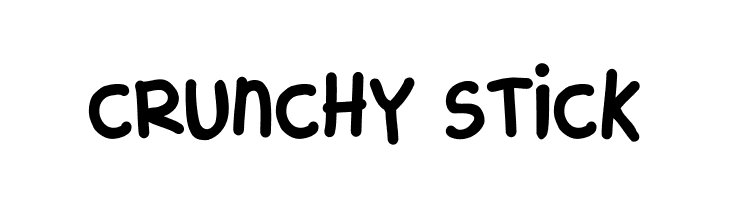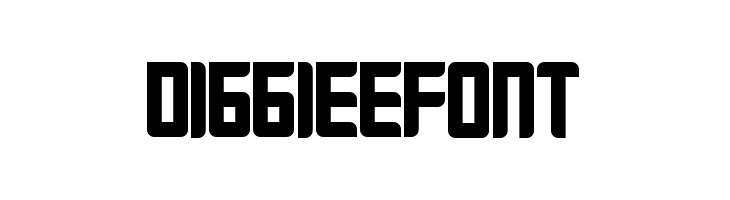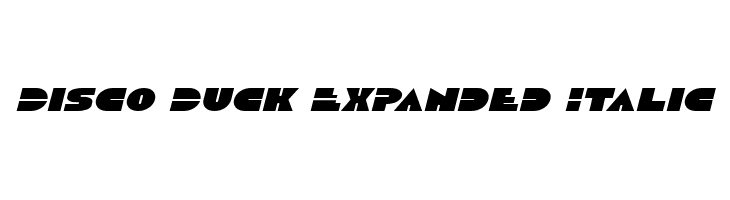
A spooky, decorative font with sharp serifs and a Halloween-inspired style.
A whimsical and decorative font with curly, flowing letterforms.
A playful font with characters designed as stylized faces, perfect for creative and humorous projects.
A geometric, digital-inspired font with semi-bold weight and rounded corners.
A futuristic, engraved font with a three-dimensional, geometric design.
A bold, decorative font with cartoon figures, perfect for playful designs.
A playful, bold handwritten font with a casual and friendly appearance.
A bold, geometric font with a modern, industrial style.
A futuristic, 3D italic font with bold, angular lines and a tech-inspired look.
A bold, cartoonish font with sharp edges and thick outlines.
设计师偏爱 The Spooky Time, Dream Unicorn, PolyFace Regular, Electronic SemiBold and Xephyr Engraved,因为其造型干净、适用范围广—— 从品牌识别到落地页、海报都能胜任。